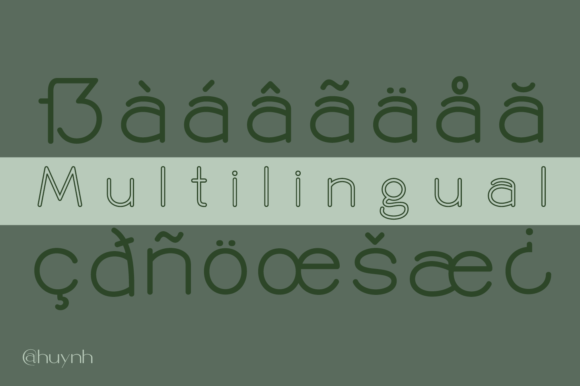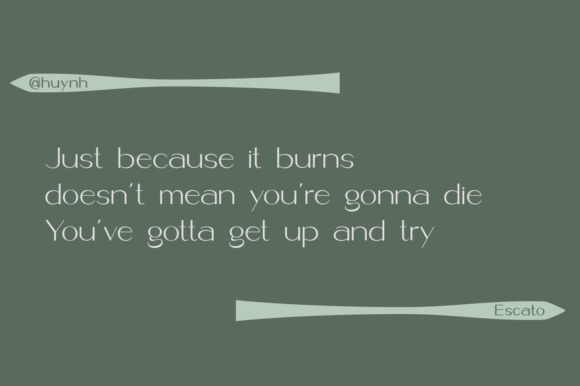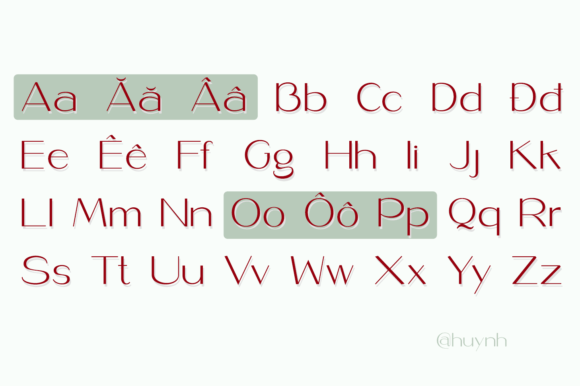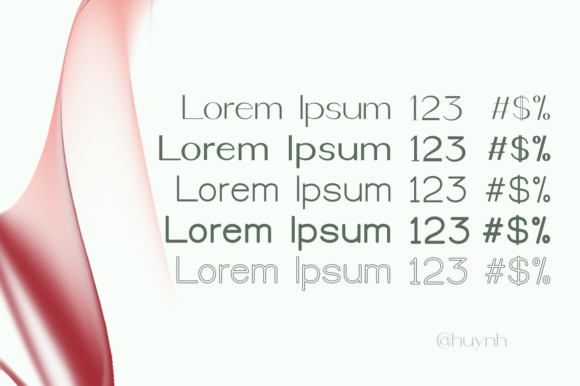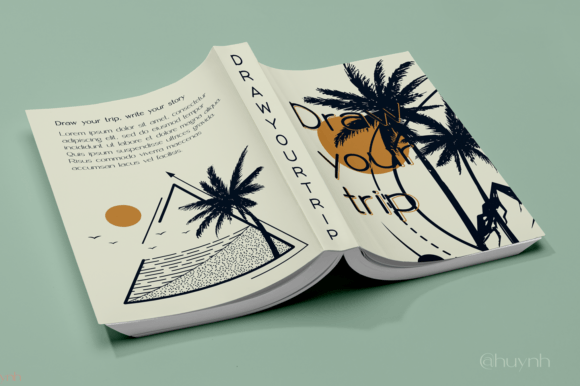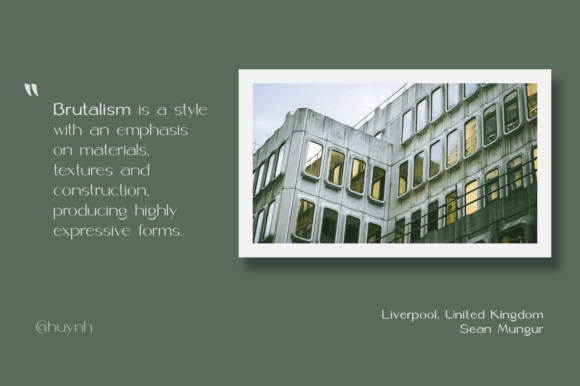
Introducing Escato Font: A Modern Sans Serif for Sophisticated Designs
In the world of typography, a font can make or break a design. For designers and crafters looking for a modern sans serif font that exudes simplicity and sophistication, Escato Font is an excellent choice. This versatile font family consists of 5 styles, ranging from Regular to Outline, making it perfect for a wide range of creative projects.
What is Escato Font?
Escato is a modern sans serif font family designed with a simple yet distinctive approach. Its clean lines and minimalist aesthetic make it an ideal choice for designers seeking a font that can elevate their work without overpowering it. The Escato font family includes 5 styles: Regular, Bold, Round, Bold Round, and Outline, offering flexibility and variety for different design applications.
Key Features of Escato Font
- Simple Design: Escato’s design is characterized by its simplicity and lack of unnecessary embellishments, making it perfect for designs that require a clean and modern look.
- Break-Rule Style: What sets Escato apart is its subtle break-rule design element, which adds a touch of uniqueness to its otherwise straightforward sans serif style.
- 5 Styles: The Escato font family offers 5 distinct styles:
- Regular: The standard weight for everyday use.
- Bold: For when you need to make a statement.
- Round: A softer, more rounded version for a gentler look.
- Bold Round: Combining boldness with rounded edges for a friendly yet impactful feel.
- Outline: An outlined version for creative and unique applications.
Use Cases for Escato Font
Escato’s versatility makes it suitable for a variety of design projects, including:
- Magazines and Books: Its readability and modern look make it perfect for editorial designs.
- Business Cards and Branding: Escato’s simplicity and sophistication ensure your business cards and brand identities stand out.
- Logos: The unique break-rule style can add a distinctive touch to your logo designs.
- Web Design: Escato’s clean design translates well to digital platforms, making it suitable for website design and digital marketing materials.
Why Choose Escato Font?
Choosing Escato Font for your design projects comes with several advantages:
- Legibility: Its sans serif design ensures excellent readability across various mediums.
- Versatility: With 5 different styles, Escato can cater to a wide range of design needs.
- Uniqueness: The subtle break-rule in its design gives Escato a distinctive edge over more traditional sans serif fonts.
- Modern Appeal: Escato’s modern aesthetic makes it perfect for designers looking to create contemporary and stylish designs.
| Font Name | Escato Font |
| Author | Sayuri Huynh |
Escato Font is a modern sans serif font family that brings together simplicity, versatility, and a unique design element. Its range of 5 styles, from Regular to Outline, makes it an excellent choice for a variety of design projects, from editorial and branding to digital and creative designs. Whether you’re a professional designer or a crafter looking for the perfect font, Escato offers the sophistication and creativity you’re looking for.